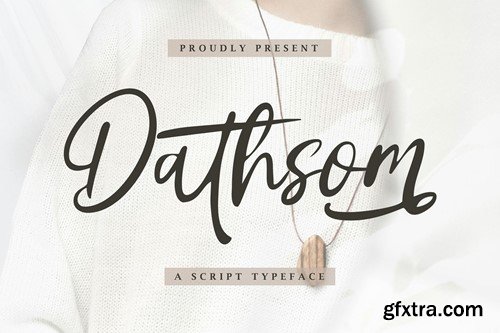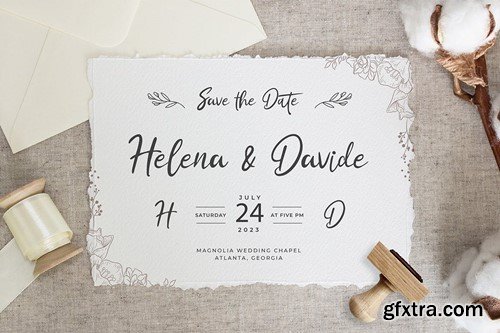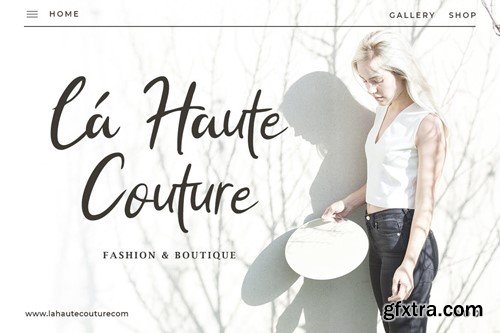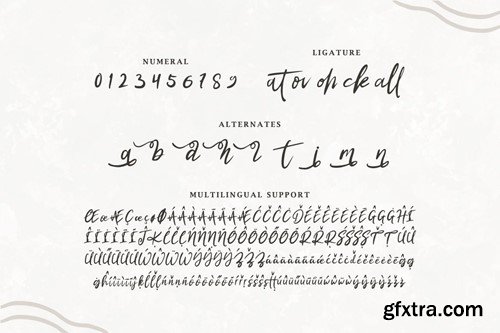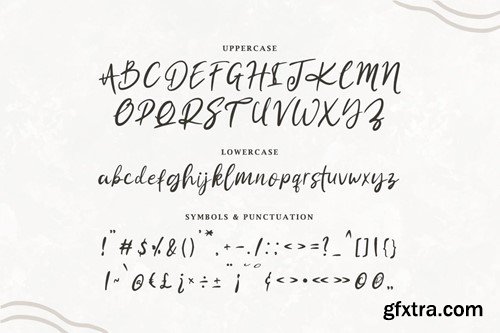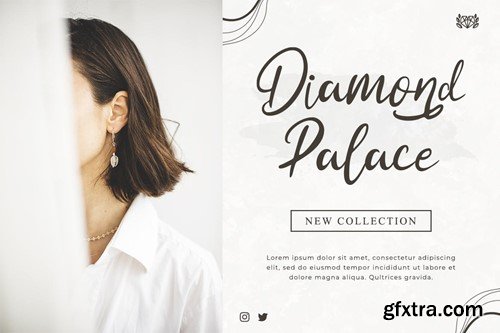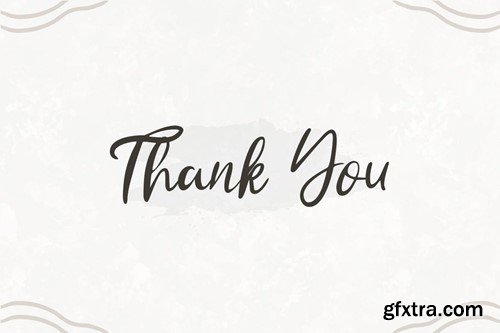
达斯蒙 - 一种字体类型KE78HPV
Introducing "Dathsom" - a captivating script typeface that infuses elegance and personality into every stroke, perfect for adding a touch of sophistication to your designs. With its fluid and graceful letterforms, "Dathsom" exudes charm and versatility, making it ideal for a wide range of design applications. Whether you're crafting wedding invitations, branding materials, packaging designs, or social media graphics, this script typeface elevates your projects with its timeless beauty and handmade feel. Embrace the graceful curves and delicate details of "Dathsom" as it effortlessly enhances your designs. With its natural flow and authentic character, this script typeface brings warmth and charm to any project, ensuring that your message resonates with elegance and style. Step into a world of handwritten elegance with "Dathsom" and let your designs shine with its captivating beauty and effortless grace. Features: – Uppercase – Lowercase – Symbols & Punctuation – Numeral – Ligature – Alternate – Multilingual Support File Included: – Dathsom ( OTF, TTF, WOFF )